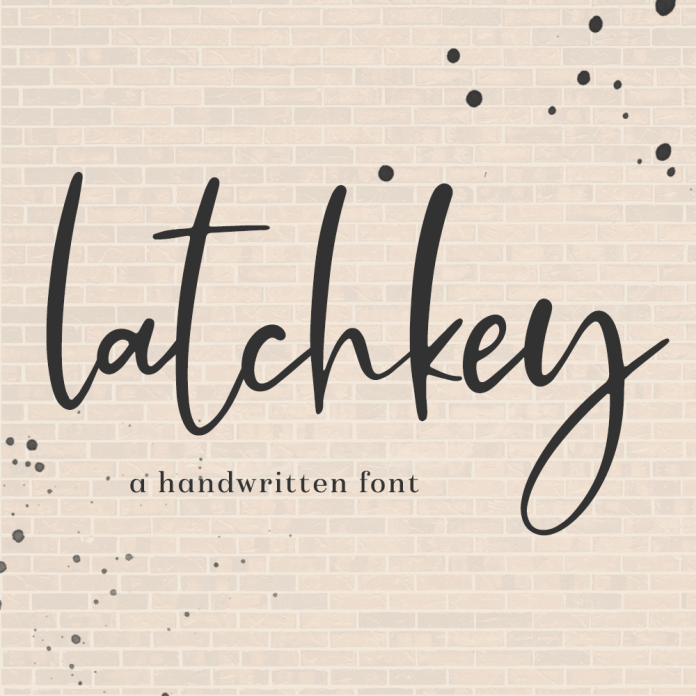
Latchkey Script Font
Introducing Latchkey Script, a handwritten signature style font. This stylish font features a messy, casual look and includes a full set of lowercase alternates and some common double letter ligatures. Latchkey Script is best for: - logos + branding - website design + website accents - think design blogs, travel blogs, fashion blogs, & more - clean print design, like magazines + flyers - header elements that need handwritten touch - quote graphics for social media Latchkey includes: - full upper + lowercase characters - numbers + punctuation - Western European Language Support - 26 lowercase alternates - 14 double letter ligatures - bb, cc, dd, ee ,ff, gg, ll, mm, nn, oo, pp, rr, ss, tt - PUA-encoding